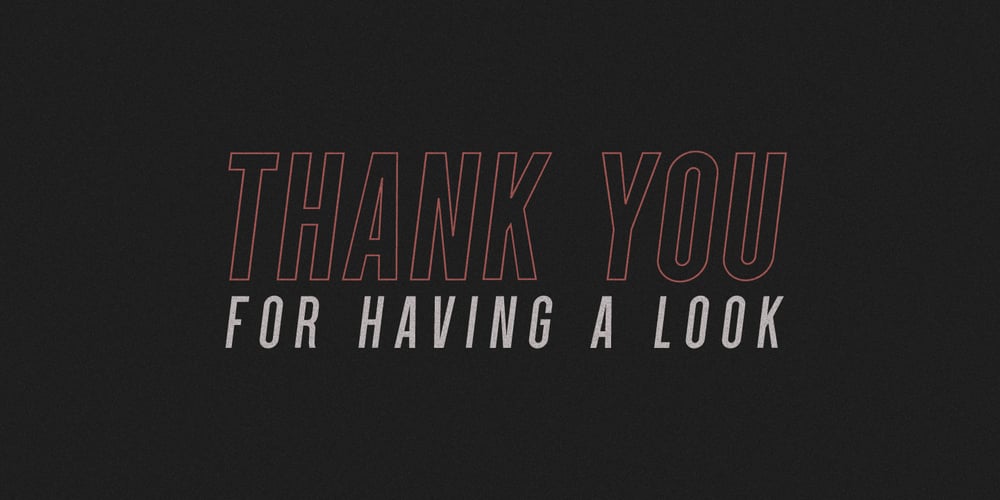
Parkson Font Family was designed by Greg Nicholls and published by Rook Supply. Parkson contains 18 styles and family package options. Inspired by the grotesque fonts of the 19th century, Parkson is a tall sans serif typeface of 7 weights along with italic and several outline versions. The contemporary typeface aims to be one of the world’s best condensed collection of fonts. Designed for optimum legibility, its clean, geometric look is perfect for logotypes, headers, titles and brochures.